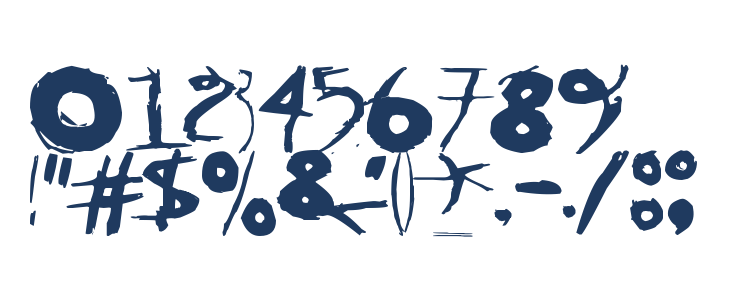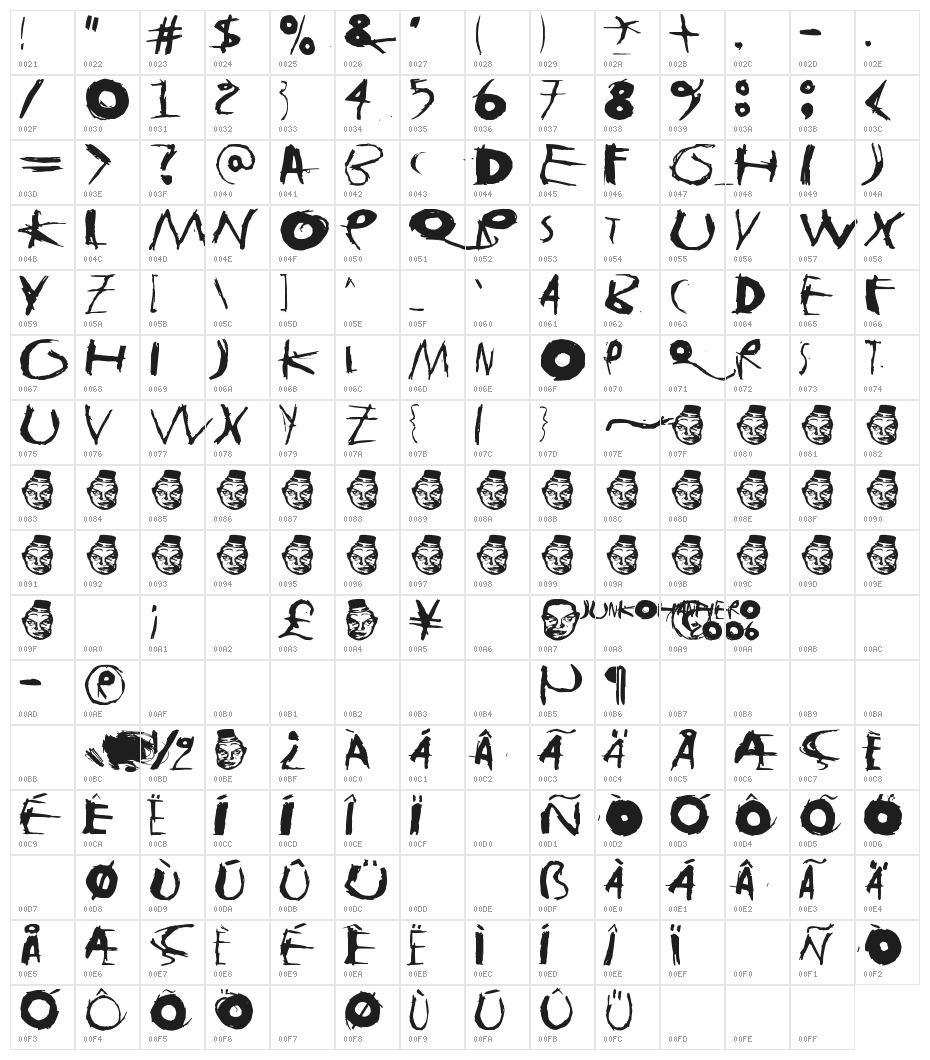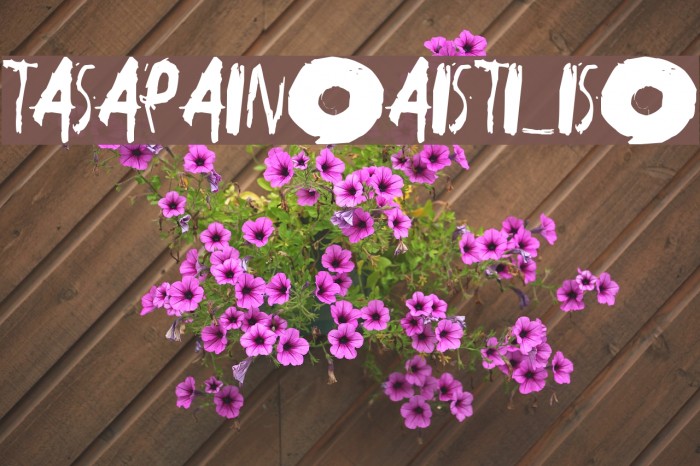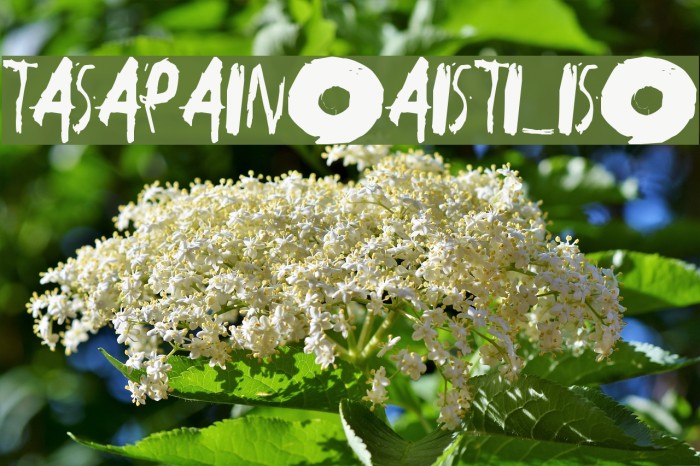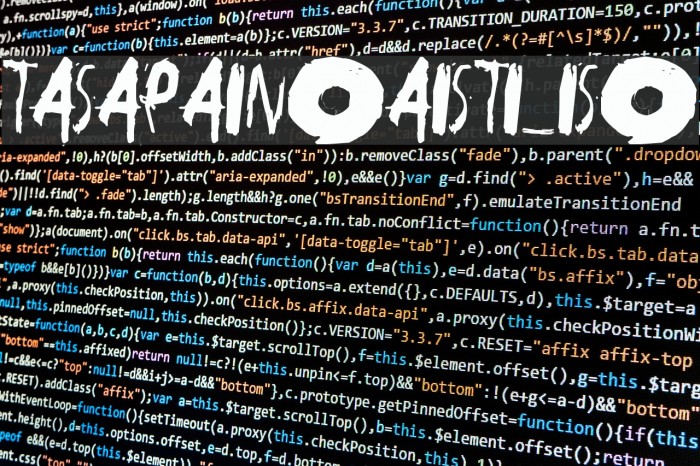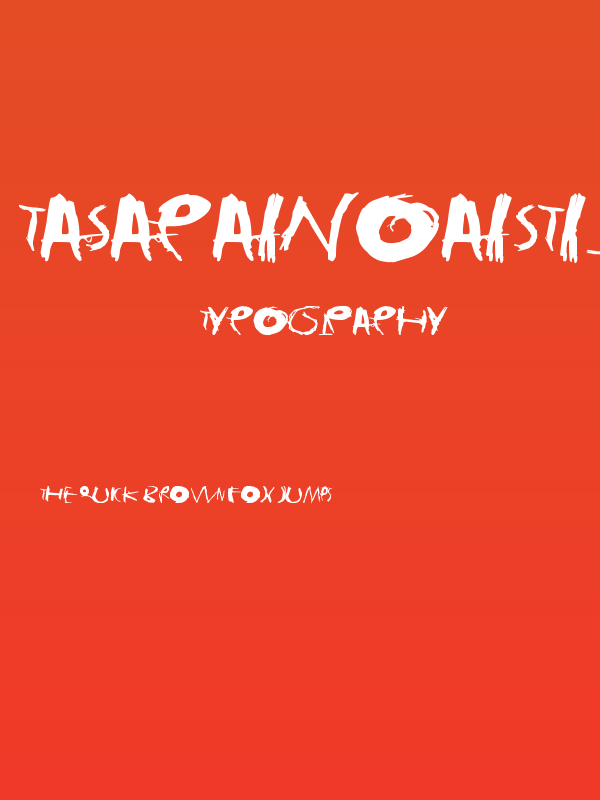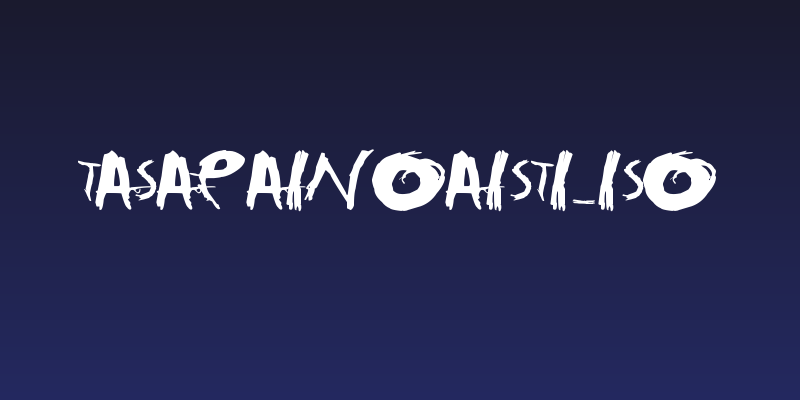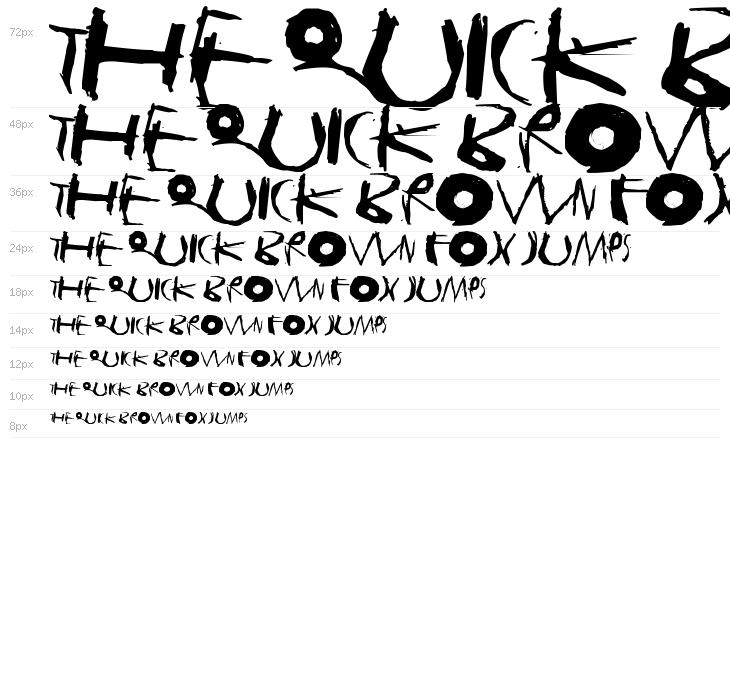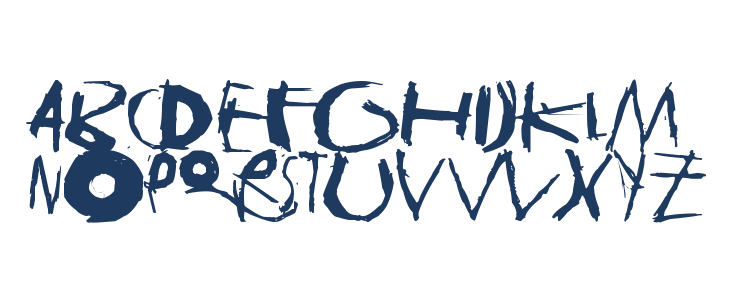
tasapainoaisti_iso Font
tasapainoaisti_iso Description
This font exhibits a bold, expressive style with a hand-drawn appearance. The characters are irregular and dynamic, featuring thick strokes and rough edges that give it a raw, artistic feel. The uppercase and lowercase letters maintain a consistent aesthetic, with exaggerated curves and angles that create a sense of movement. Numbers and special characters follow the same design principles, enhancing the font's cohesive look. The overall style is reminiscent of graffiti or street art, making it stand out with its unconventional and edgy design.
| Proposed Projects | Ideal for projects requiring a bold, artistic touch, such as album covers, posters, or street art-inspired designs. |